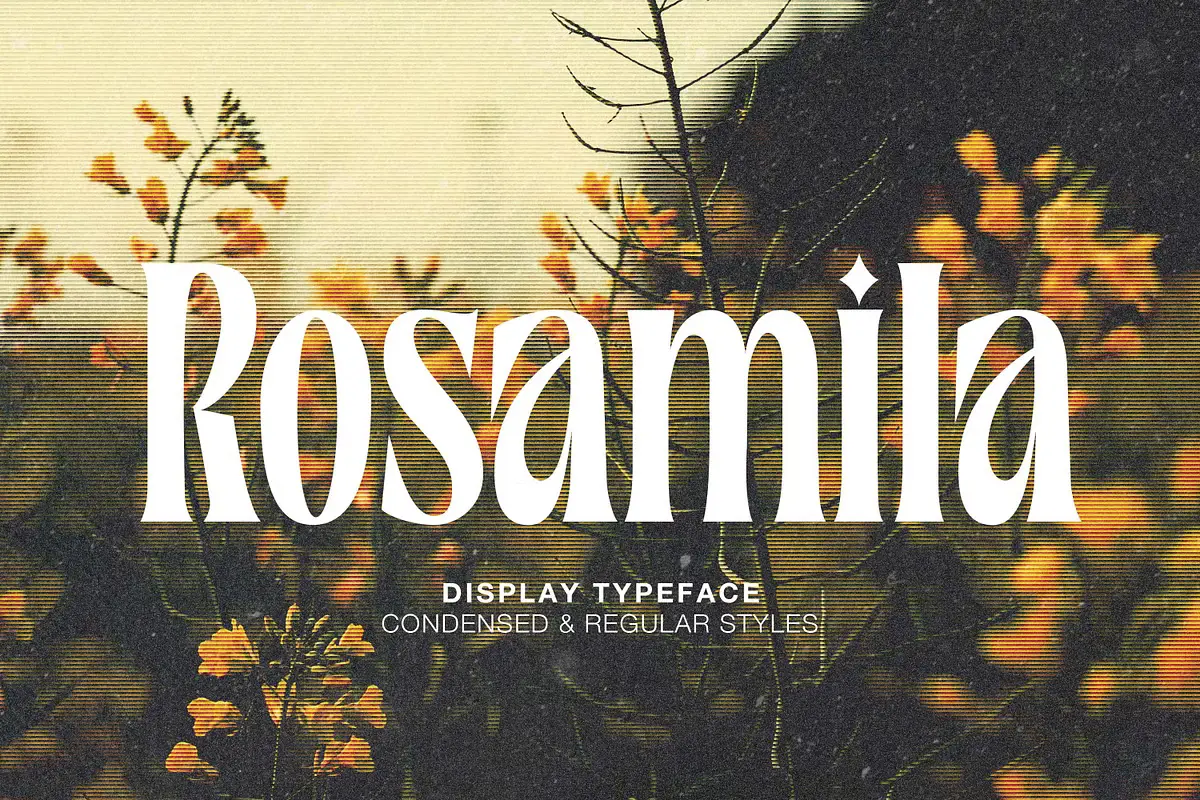
The Free Rosamila Stylish Serif Font offers a chic and elegant typeface with beautiful ligatures, available in Condensed and Regular styles. Its versatile design is perfect for creating stunning wedding invitations, elegant stationery, striking social media posts, and much more.
Free Rosamila Stylish Serif Font